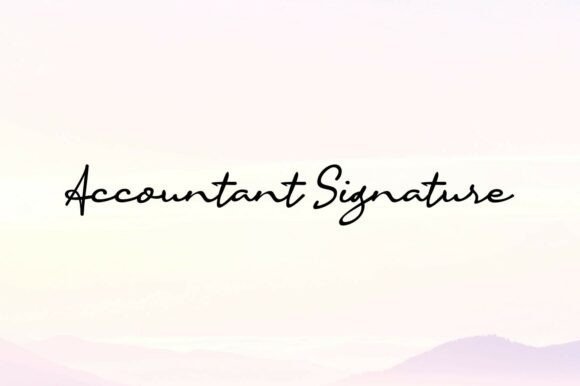
The Perfect Blend of Professionalism and Personality
Have you ever found yourself in a creative rut, staring at a blank canvas or screen, searching for the perfect font to bring your design to life? That’s exactly where I was when I stumbled upon the Accountant Signature Font. Its elegant and sophisticated script style instantly captivated me, and I knew I had to learn more.
This beautiful font is designed to add a touch of authenticity and trustworthiness to any project, making it perfect for designers looking to create a lasting impression. Whether you’re working on a luxury brand, a personal project, or a professional document, the Accountant Signature Font is sure to elevate your design and convey a sense of sophistication and bespoke quality.
With its unique blend of professionalism and personality, the Accountant Signature Font is a valuable addition to any designer’s toolkit, allowing you to create designs that truly stand out and leave a lasting impression.
Accountant Signature Font Key Features
- Font Family: The font family is specifically designed for accountants, with a unique blend of professionalism and elegance.
- Unique Characteristics: The font features a distinctive, cursive script that adds a touch of personality to accountants’ signatures, while maintaining a level of professionalism.
Accountant Signature Font Review
Overall, I’d say this font is a decent choice for those looking for a professional and elegant signature font. ✨ The font’s clean and modern design makes it perfect for accountants and financial professionals who want to leave a lasting impression.
- The font is highly customizable, allowing users to adjust the size, color, and style to fit their needs.
- The font is very legible, making it easy to read even for those with vision impairments.
- The font is available in various weights, from light to bold, giving users flexibility in choosing the right style.
- ⚠️ The font may not be as unique or distinctive as some users might hope for, as it’s a fairly common font style.
- ⚠️ The font may not be suitable for creative or artistic projects, as it’s primarily designed for professional and formal use.
- ⚠️ Some users may find the font to be too plain or boring, especially when used in isolation.
Overall, I think this font is a solid choice for accountants and financial professionals who want a professional and elegant signature font. While it may not be the most unique or distinctive font, it’s highly customizable and compatible, making it a great option for those who want a reliable and professional font.
Use the Accountant Signature Font for professional documents, such as financial reports and invoices.
Experiment with different font sizes and colors to create a unique visual identity.
Combine the font with other design elements, such as logos and graphics, to create a cohesive look.
Financial reports
Invoices
Business cards
Letterheads